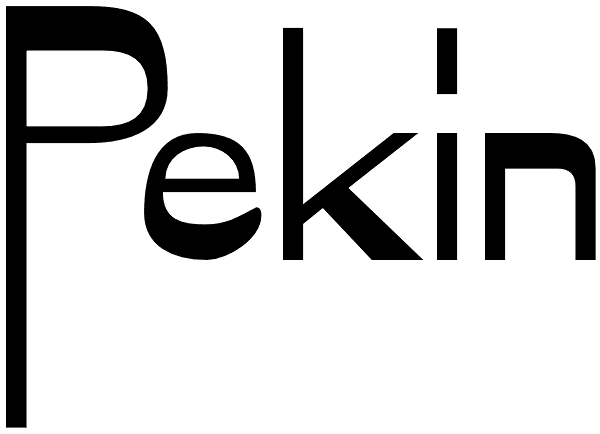
Pekin
Pekin is an unusual design with an oriental flavor. It was originally designed by Ernst Lauschke and released by The Great Western Type Foundry of Chicago as “Dormer,” which is similar to the French verb ‘to sleep,’ not exactly a marketing triumph...